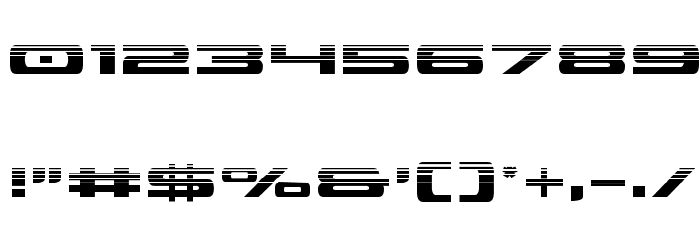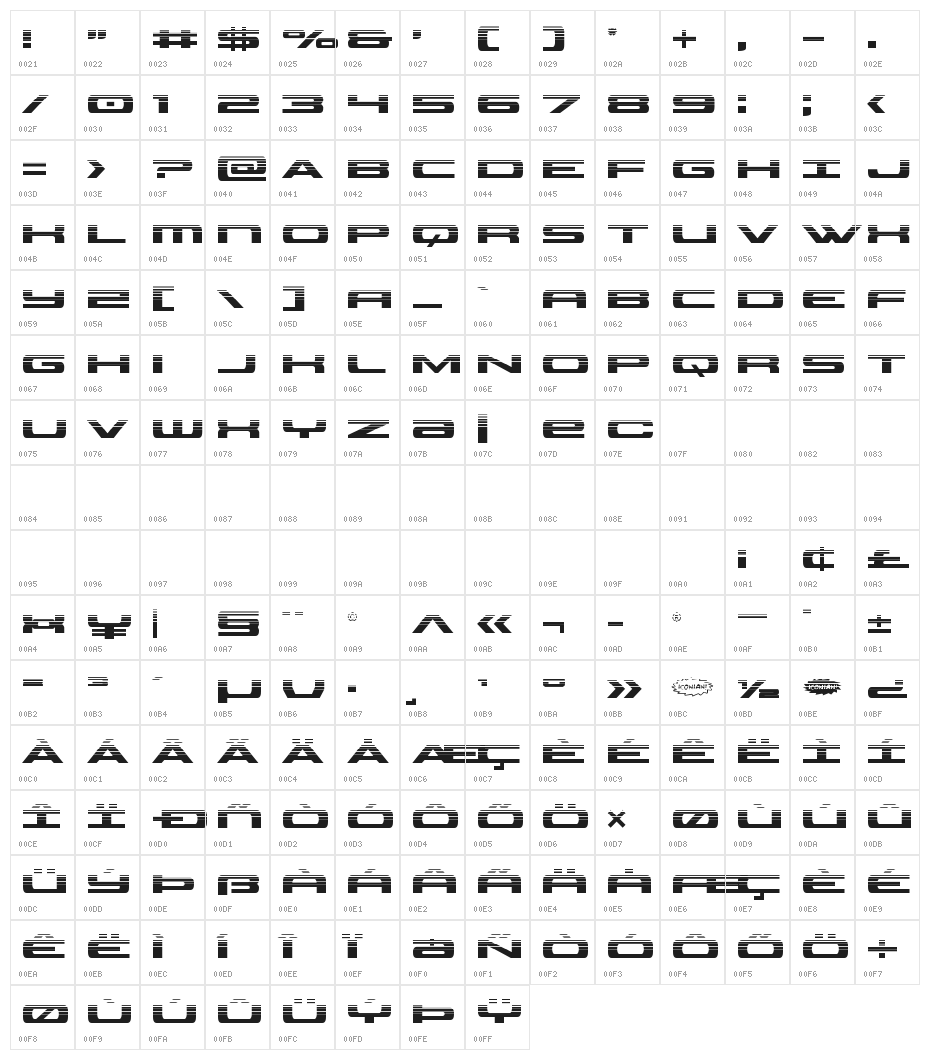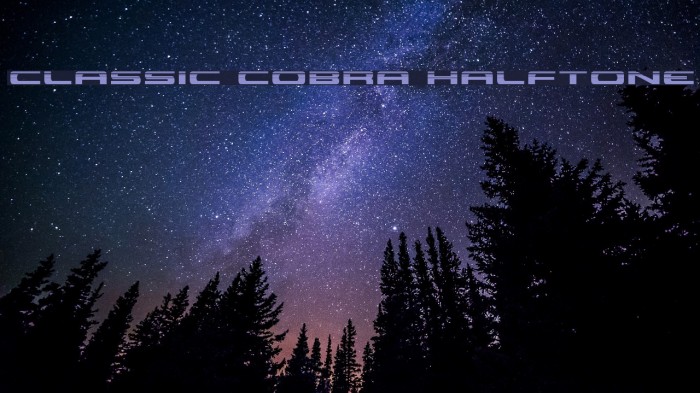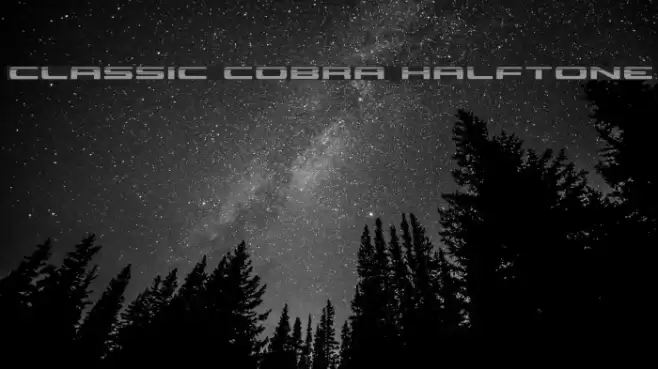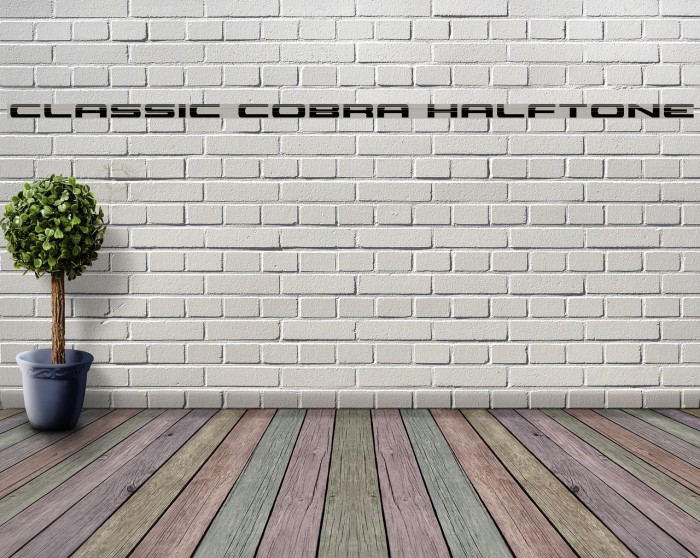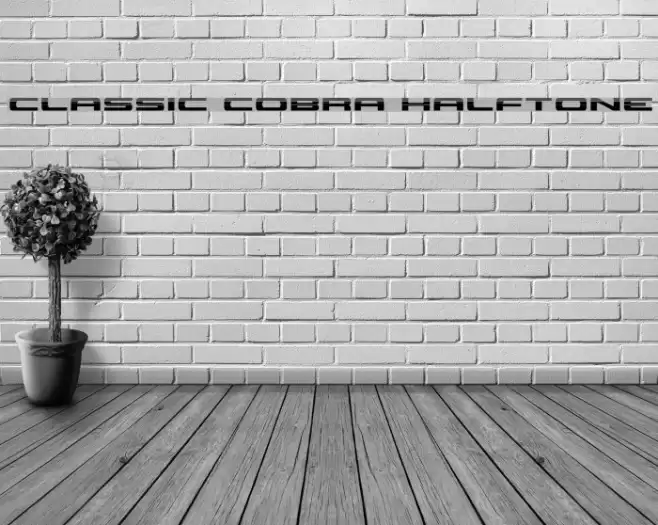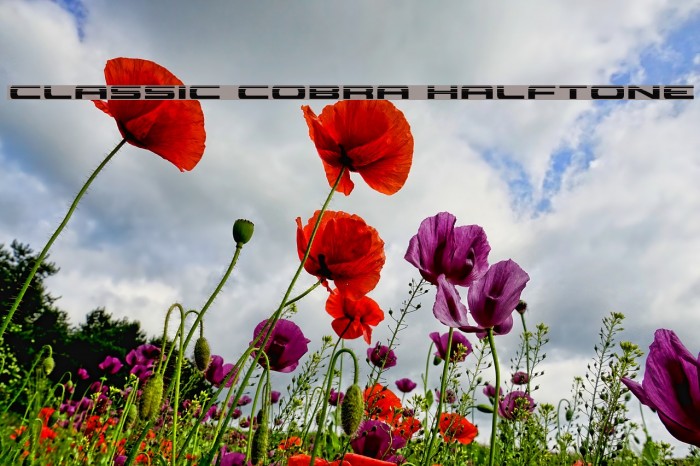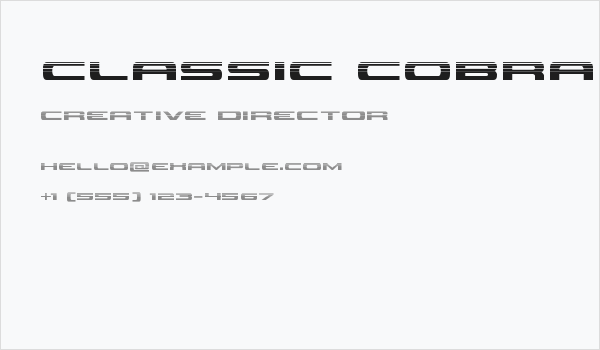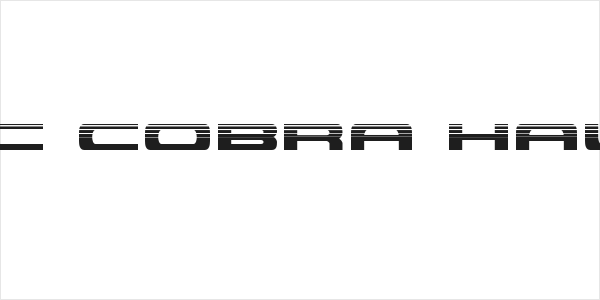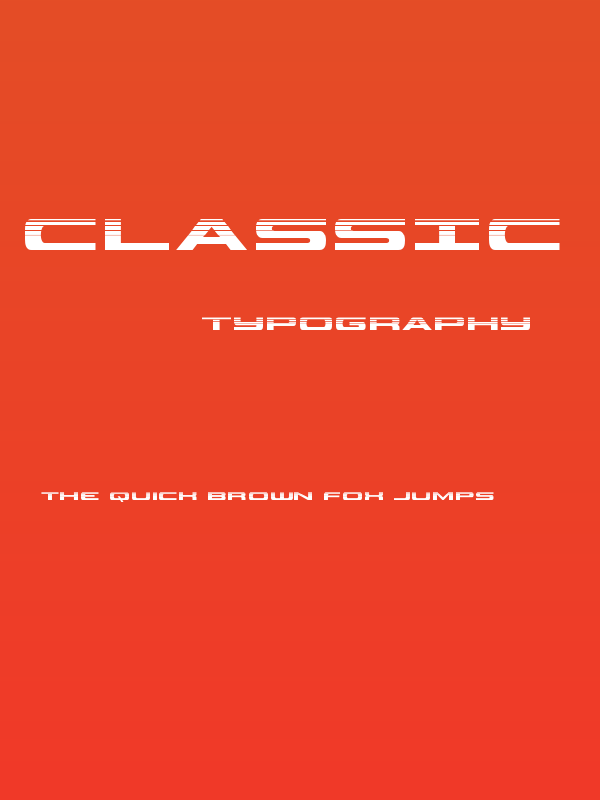
Classic Cobra Halftone Font
Classic Cobra Halftone Description
This font features a bold and futuristic design with a halftone effect that gives it a unique, digital appearance. The characters are constructed with horizontal lines that create a sense of movement and modernity. The uppercase and lowercase letters maintain a consistent style, with sharp angles and a geometric structure. Numbers and special characters follow the same design principles, ensuring uniformity across all elements. The font's distinct style makes it ideal for projects that require a contemporary and edgy look.
| Proposed Projects | Ideal for digital artwork, video game titles, tech branding, and sci-fi themed projects. |